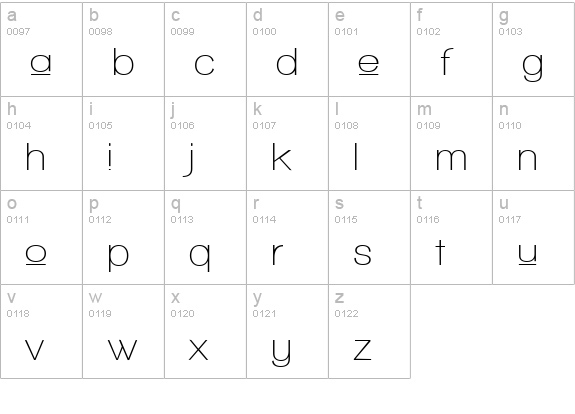
Walkway Upper SemiBold is a sub-bold, structured variant in the Walkway typeface family \xE2\x80\x94 well suited to sub-headlines and emphasised passages.
Walkway Upper SemiBold font is a modern and stylish typeface that exudes confidence and professionalism. Its bold and sleek design makes it perfect for a wide range of projects, from branding to editorial design. With its clean lines and sharp edges, Walkway Upper SemiBold font commands attention and adds a touch of sophistication to any design. What makes Walkway Upper SemiBold font even more appealing is that it is available for free download at FontsMarket.com. This means that you can easily access this high-quality font without any cost, making it a valuable addition to your font library. Whether you're working on a print project or a digital design, Walkway Upper SemiBold font is sure to make a bold statement and elevate your work to the next level.